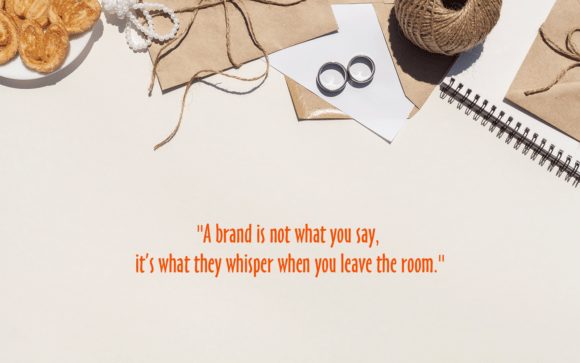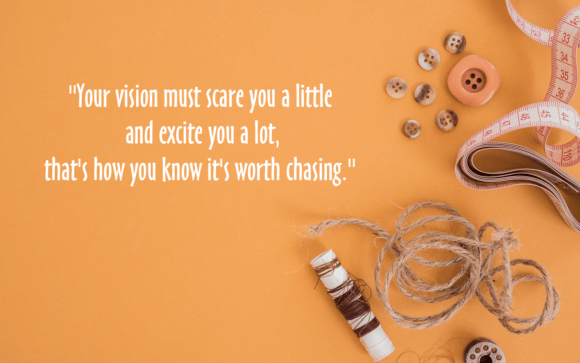
Introducing Handisoft Font: The Cheerful and Quirky Handwritten-Typeface for Friendly Designs
Are you looking for a font that can add a friendly, casual charm to your designs? Look no further than Handisoft Font! This delightful handwritten-style typeface is perfect for creating kid-friendly content, creative branding, classroom posters, or cozy seasonal projects. With its tall, playful letterforms and soft curves, Handisoft brings a cheerful and quirky vibe to any design.
The Characteristics of Handisoft Font
Handisoft Font is a unique and charming typeface that boasts several distinct characteristics. Its tall letterforms give it a playful and youthful feel, while its soft curves add a touch of warmth and approachability. The font’s quirky and irregular shapes make it perfect for designs that require a friendly and casual tone. Whether you’re creating a poster for a kids’ event or a social media graphic for a crafty brand, Handisoft Font is sure to bring a smile to your audience’s faces.
Perfect for Kid-Friendly Content
Handisoft Font is an excellent choice for kid-friendly content, such as children’s books, educational materials, or kids’ event posters. Its playful and cheerful vibe is sure to appeal to young audiences and make your content stand out. The font’s clear and legible letterforms also make it easy to read, even for early readers. With Handisoft Font, you can create engaging and fun content that kids will love.
Ideal for Creative Branding
Handisoft Font is also perfect for creative branding, particularly for businesses that want to convey a friendly and approachable image. Whether you’re a crafty business, a bakery, or a children’s clothing brand, Handisoft Font can help you create a unique and memorable brand identity. Its quirky and charming vibe will set you apart from more traditional brands and help you connect with your target audience.
Great for Classroom Posters and Educational Materials
Handisoft Font is an excellent choice for classroom posters and educational materials. Its clear and legible letterforms make it easy to read, even from a distance. The font’s playful and engaging vibe will also help to capture students’ attention and make learning more fun. With Handisoft Font, you can create eye-catching posters, worksheets, and educational materials that will inspire and motivate your students.
Perfect for Cozy Seasonal Projects
Handisoft Font is also perfect for cozy seasonal projects, such as holiday cards, gift tags, or seasonal posters. Its warm and inviting vibe will help to create a sense of comfort and nostalgia, making it perfect for seasonal designs. The font’s quirky and charming shapes will also add a touch of whimsy and playfulness to your designs.
Why Choose Handisoft Font?
So why choose Handisoft Font for your designs? Here are just a few reasons:
- Unique and charming vibe: Handisoft Font has a distinctive and charming vibe that will set your designs apart from the rest.
- Perfect for kid-friendly content: Handisoft Font is ideal for kid-friendly content, such as children’s books, educational materials, or kids’ event posters.
- Ideal for creative branding: Handisoft Font is perfect for creative branding, particularly for businesses that want to convey a friendly and approachable image.
- Great for classroom posters and educational materials: Handisoft Font is an excellent choice for classroom posters and educational materials.
- Perfect for cozy seasonal projects: Handisoft Font is perfect for cozy seasonal projects, such as holiday cards, gift tags, or seasonal posters.
| Font Name | Handisoft Font |
| Author | nihadmekdad |
In conclusion, Handisoft Font is a cheerful and quirky handwritten-style typeface that brings a friendly, casual charm to any design. Its tall, playful letterforms and soft curves make it perfect for kid-friendly content, creative branding, classroom posters, or cozy seasonal projects. With its approachable vibe, Handisoft Font adds warmth and personality without being too loud. Whether you’re a designer, crafty business owner, or educator, Handisoft Font is an excellent choice for your next design project.